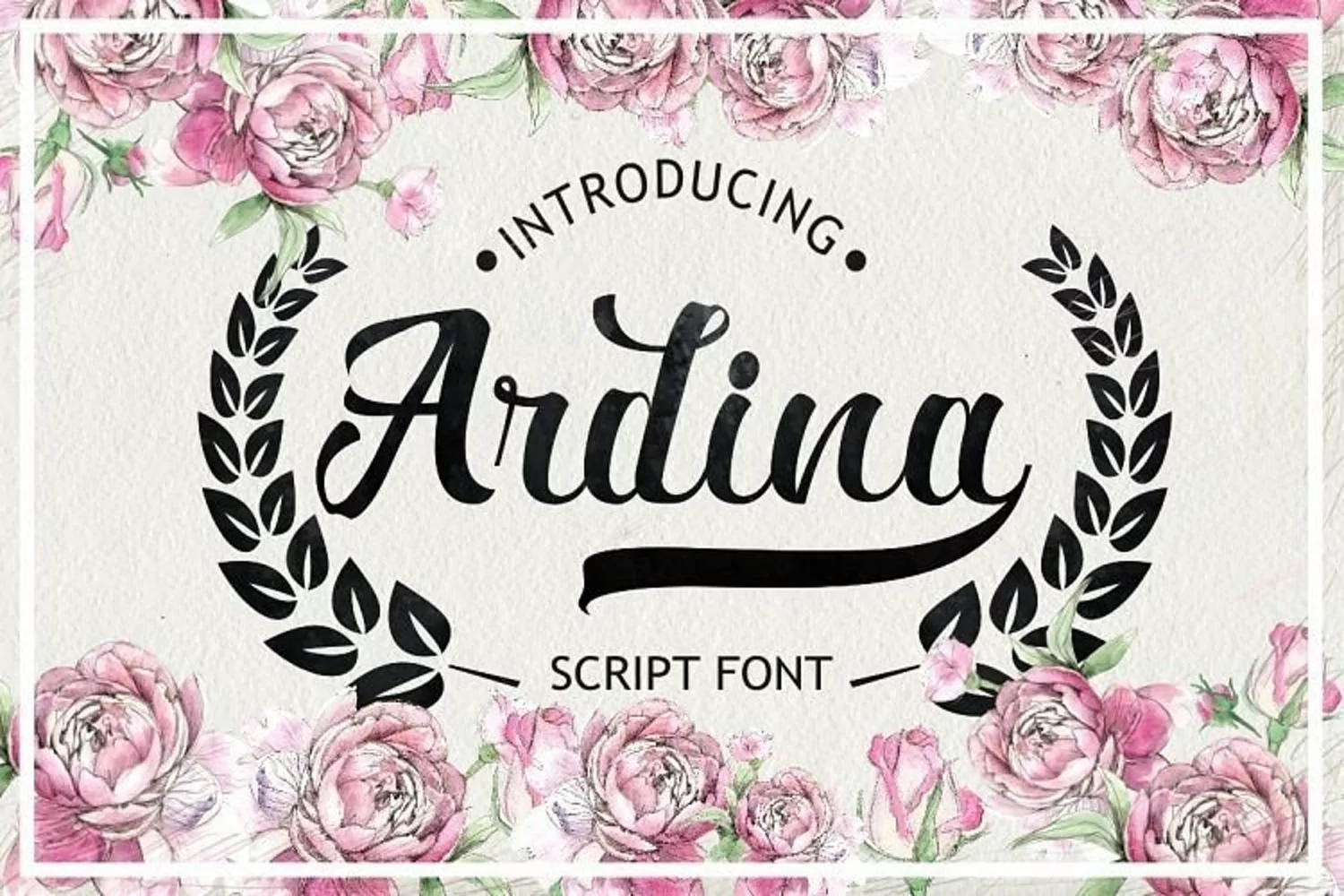
Web Font Ardina Script
Ardina script is an attractive font based on modern
techniques and an ancient style. This font is suitable for a wide range of design
needs, whether that be logo design, poster design, wedding invitations, badges,
etc.
Ardina Script has many glyphs and alternate characters and ligatures.